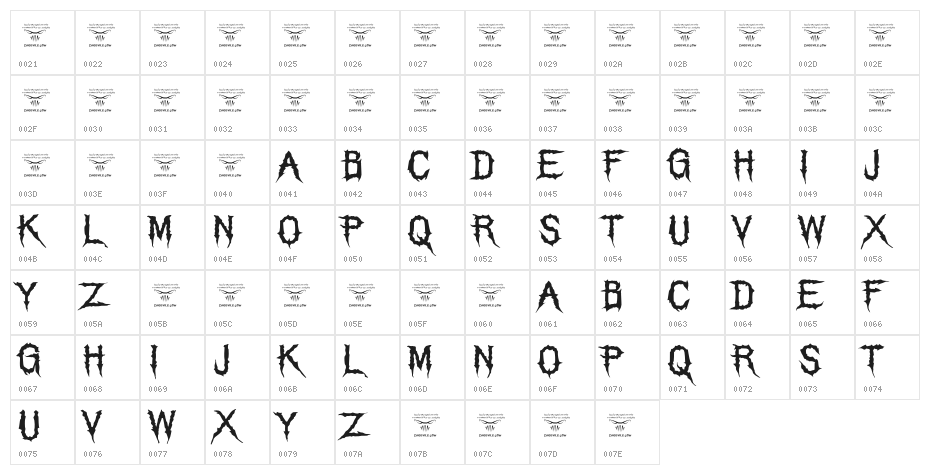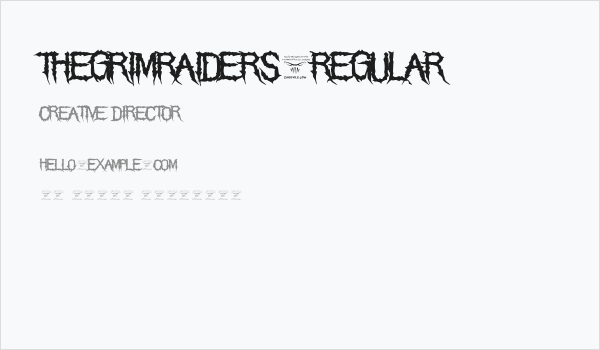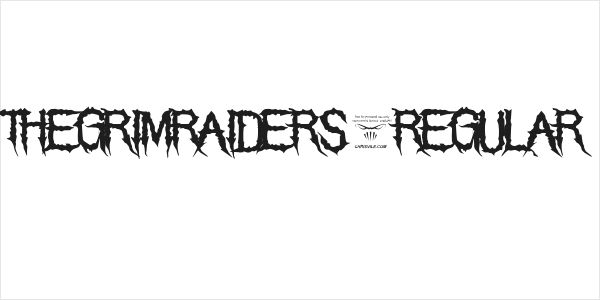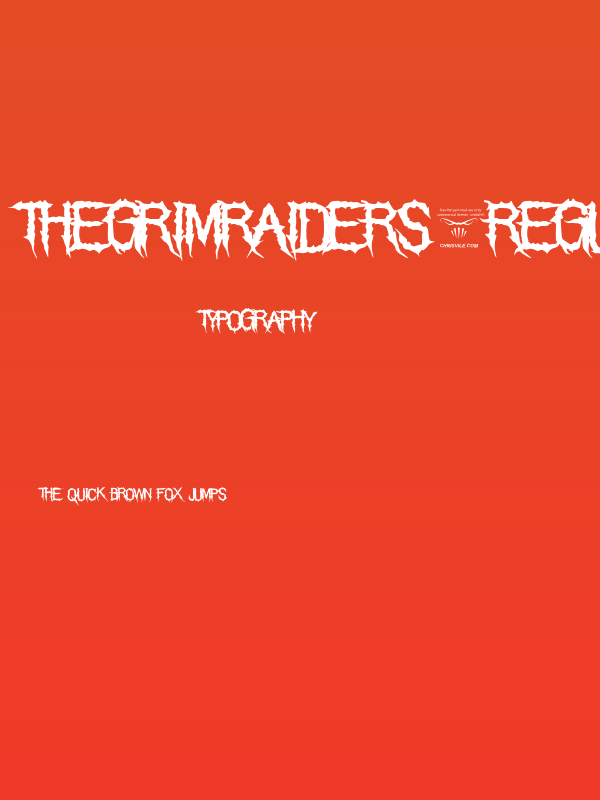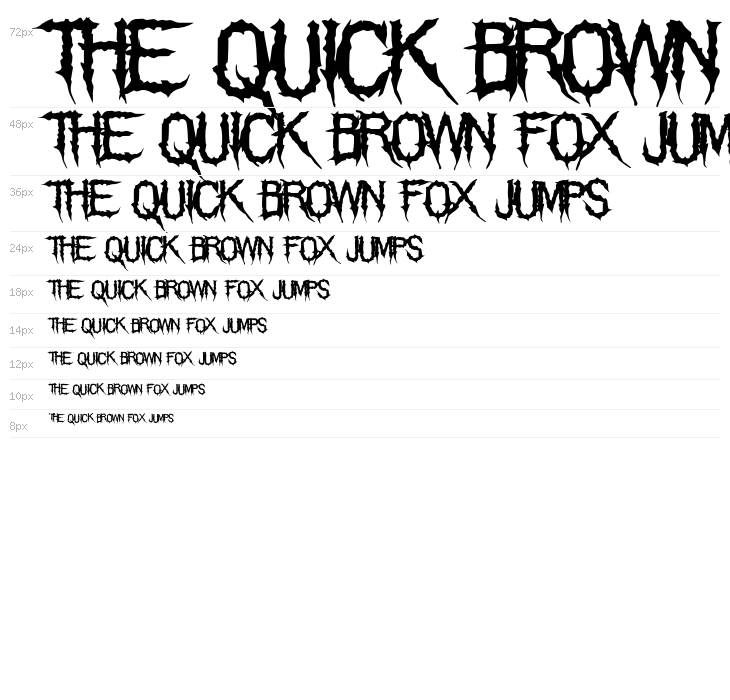
TheGrimRaiders-Regular Font
TheGrimRaiders-Regular Description
This font features a rugged and jagged design, reminiscent of sharp, thorny branches. The characters have an aggressive and edgy appearance, making them stand out with their unique, irregular outlines. The style is bold and impactful, suitable for creating a strong visual statement. The uppercase letters are particularly striking, with their sharp angles and pointed edges. The font's overall look is both intimidating and captivating, perfect for projects that require a dramatic and intense aesthetic.
| Proposed Projects | Ideal for horror-themed posters, edgy branding, video game titles, and music album covers. |